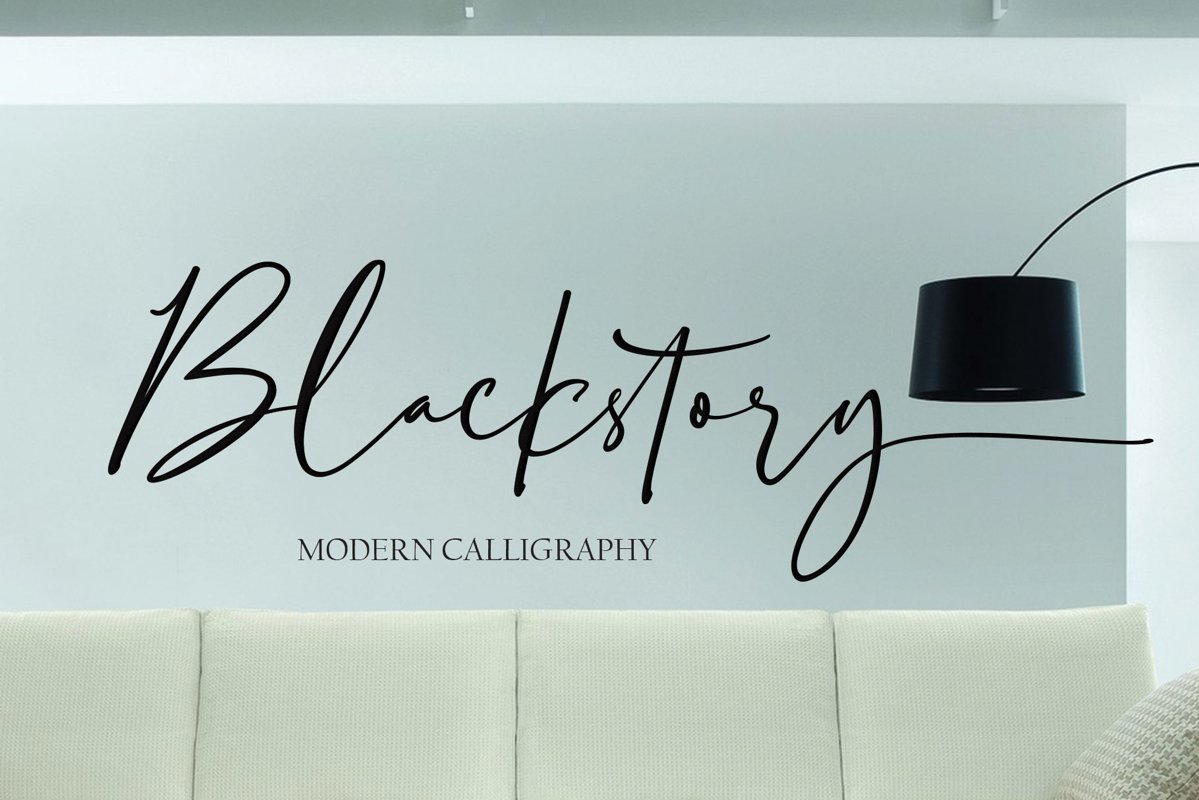
Blackstory
INTRODUCING:
Blackstory
is a stylish modern calligraphy font with casual chic flair. It is perfect for branding, wedding invites and cards.
Blackstory includes full set of gorgeous uppercase and lowercase letters, numerals, a large range of punctuation and 117 ligatures. All lowercase letters include beginning and ending swashes, giving realistic hand-lettered style.